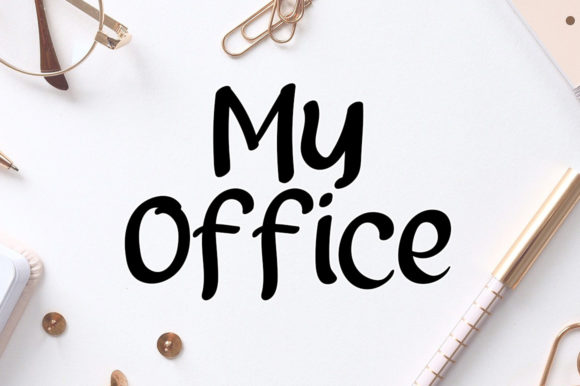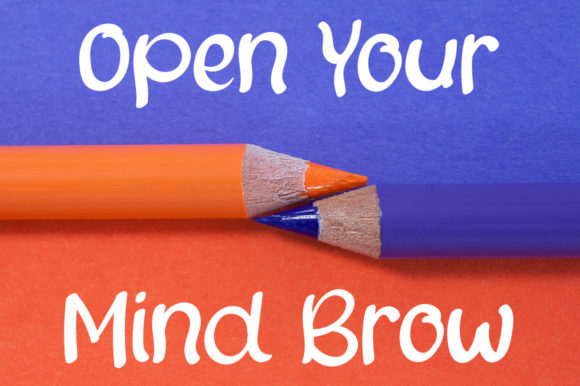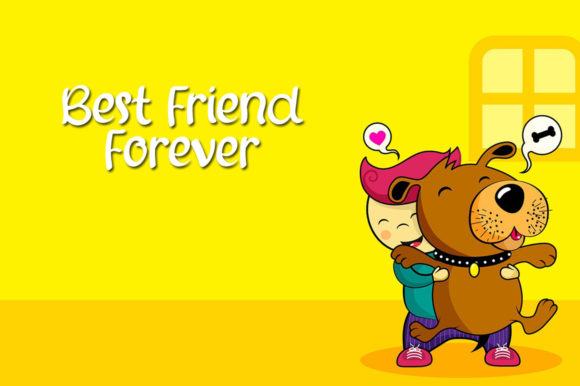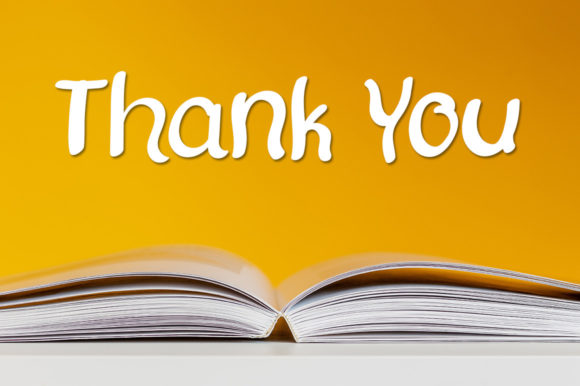
Introduction to Love Designer Font
As designers, we’ve all been there – staring at a blank canvas, waiting for that spark of creativity to strike. It’s the moment when everything comes together, and our vision takes shape. For me, it was when I stumbled upon the Love Designer Font – a beautiful and sweet typeface that added a touch of elegance to my design project. With its fresh and clean aesthetic, it was love at first sight!
The Love Designer Font is more than just a pretty face; it’s a valuable resource for designers looking to elevate their work. This high-quality font is designed to simplify your design process, making it perfect for both formal and informal projects. Whether you’re working on a creative project or need a design resource for your business, the Love Designer Font is sure to impress. With its transparent background and free download option, it’s an accessible and versatile choice for designers of all levels.
Key Features of Love Designer Font
- High-quality design resource ideal for creative projects, including wedding invitations, greeting cards, and more.
- Unique characteristics include elegant, cursive script and bold, decorative elements, perfect for adding a touch of romance to your designs.
Honest Review: Love Designer Font
I recently stumbled upon the Love Designer Font, and I must say, it’s been a delightful addition to my design resource library. With a transparent background, this font is perfect for those creative projects where you want to maintain a seamless look.
One thing that works well with the Love Designer Font is its high quality and versatility. It’s available for free download, which is a definite plus. I’ve used it for various projects, from social media graphics to wedding invitations, and it always adds a touch of elegance.
While the Love Designer Font is excellent, there are some limitations to consider. The font family is relatively small, which might limit its use in certain projects. Additionally, some of the characters may not be as customizable as I’d like.
Overall, I’m quite impressed with the Love Designer Font. Its high quality and free download make it a valuable resource for any designer. With a little creativity, you can achieve some amazing results. ✨
For the best results, use the Love Designer Font on a transparent background or a light-colored background to make the design stand out. You can also use the font in combination with other design resources to create a unique and eye-catching creative project.
The Love Designer Font is perfect for designing invitations, greeting cards, and other creative projects that require a high-quality, elegant font. You can also use it to add a touch of sophistication to your presentations and documents.